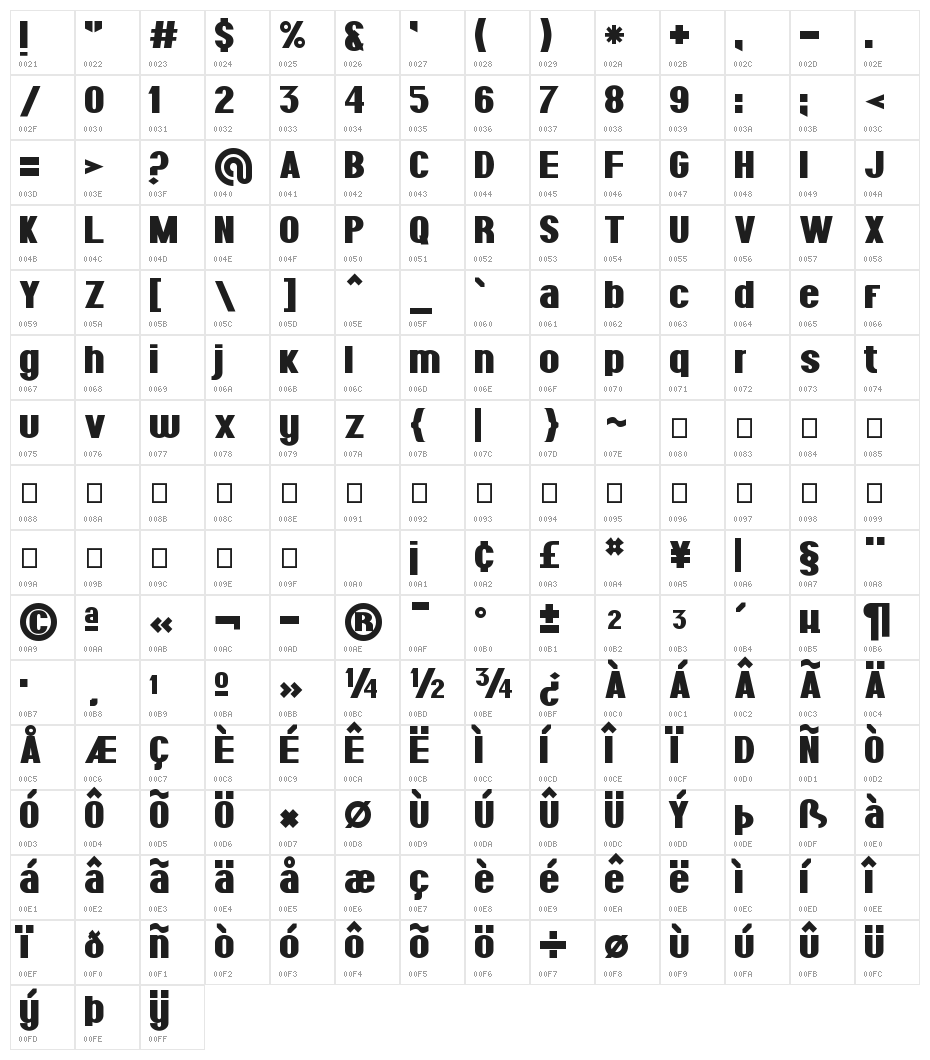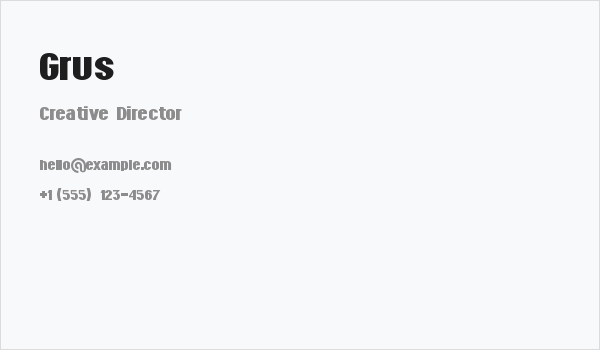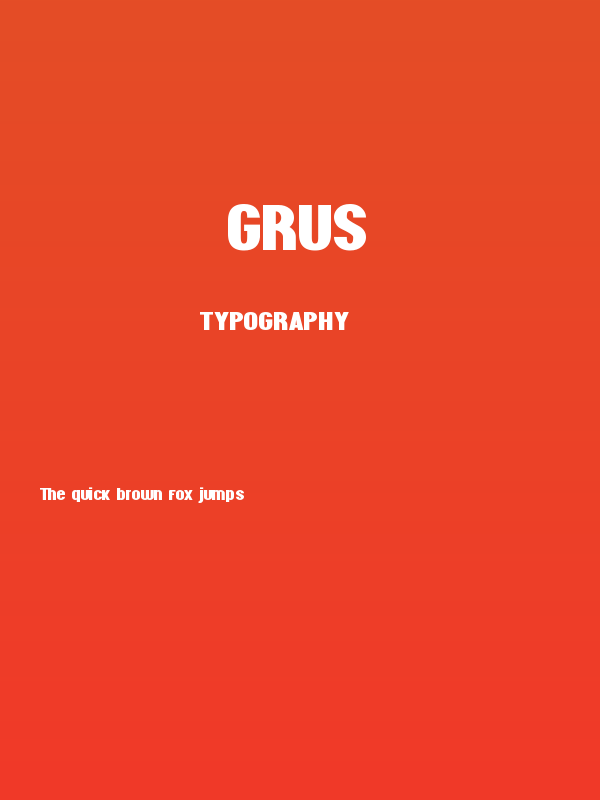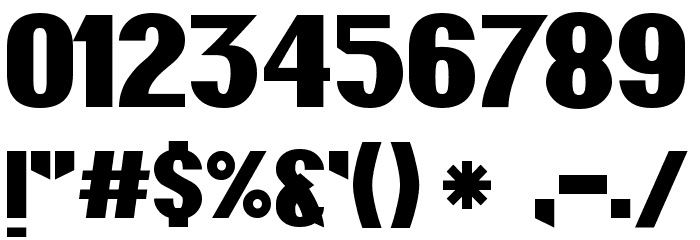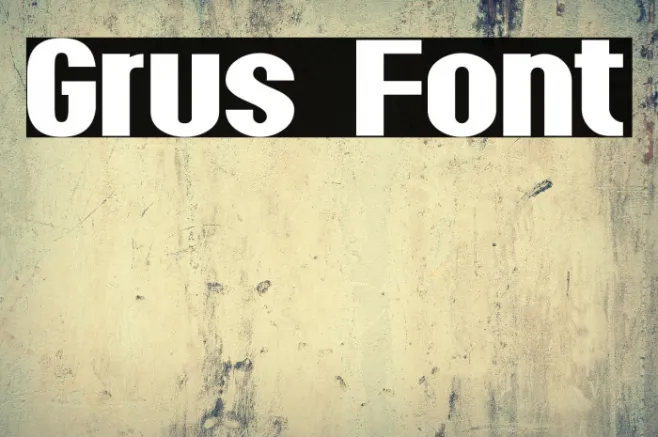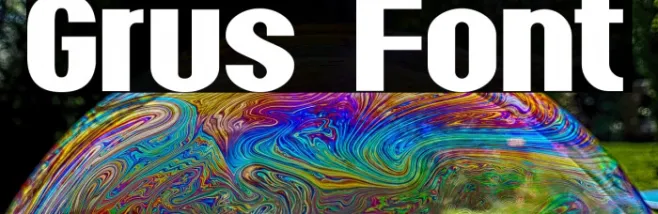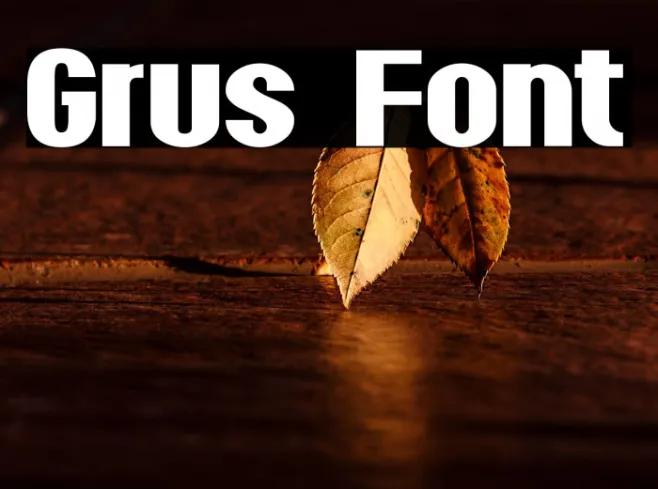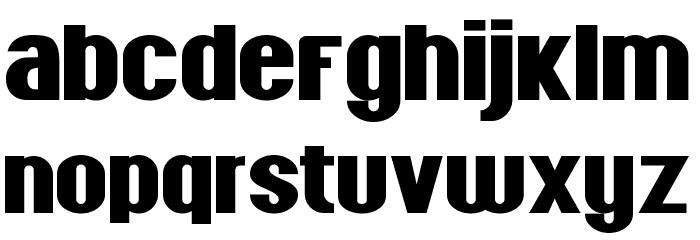
Grus Font
Grus Description
This font is a bold, sans-serif typeface characterized by its strong and impactful presence. The letters are uniformly thick, providing a consistent and powerful visual weight across all characters. The uppercase and lowercase letters maintain a cohesive style, with rounded edges that soften the overall appearance while retaining a sense of authority. The numerals are equally bold, ensuring they stand out in any context. Special characters are designed to match the robust style of the alphabet, making this font versatile for various applications. Its clean lines and modern aesthetic make it suitable for contemporary design projects.
| Proposed Projects | Ideal for headlines, posters, branding, and advertising where a strong visual impact is needed. |